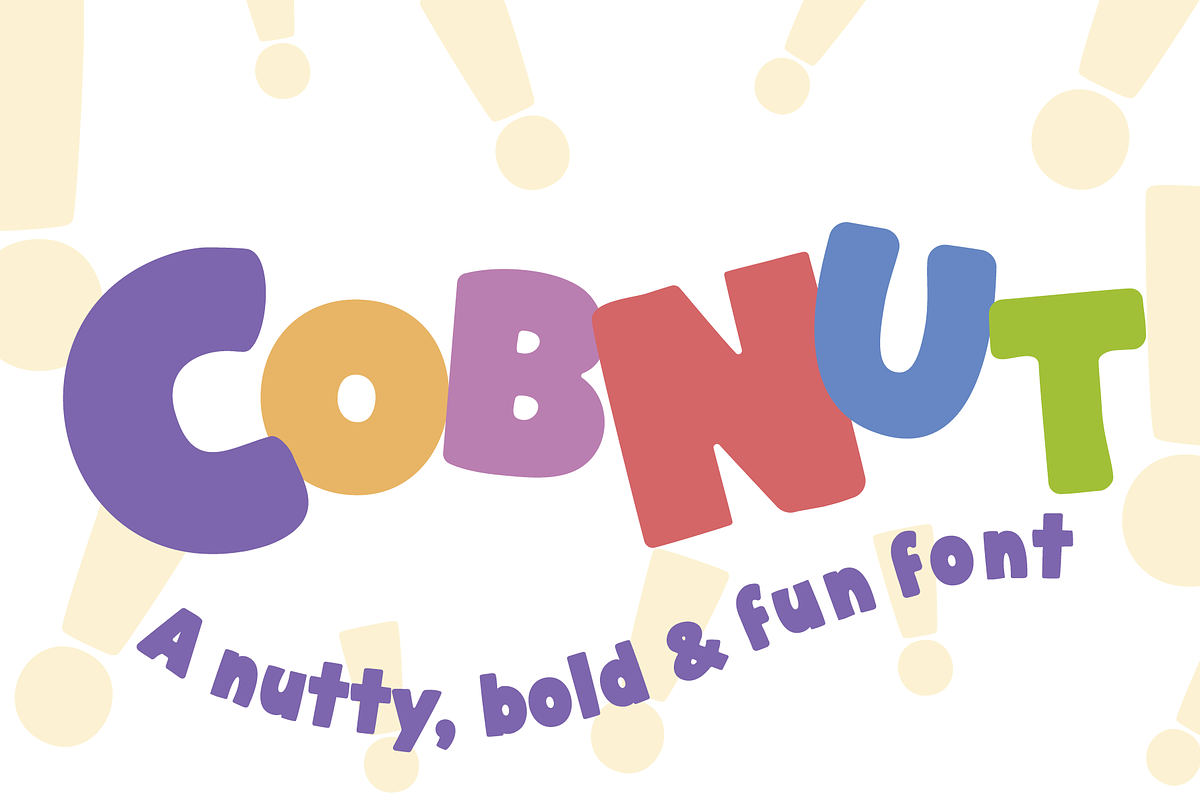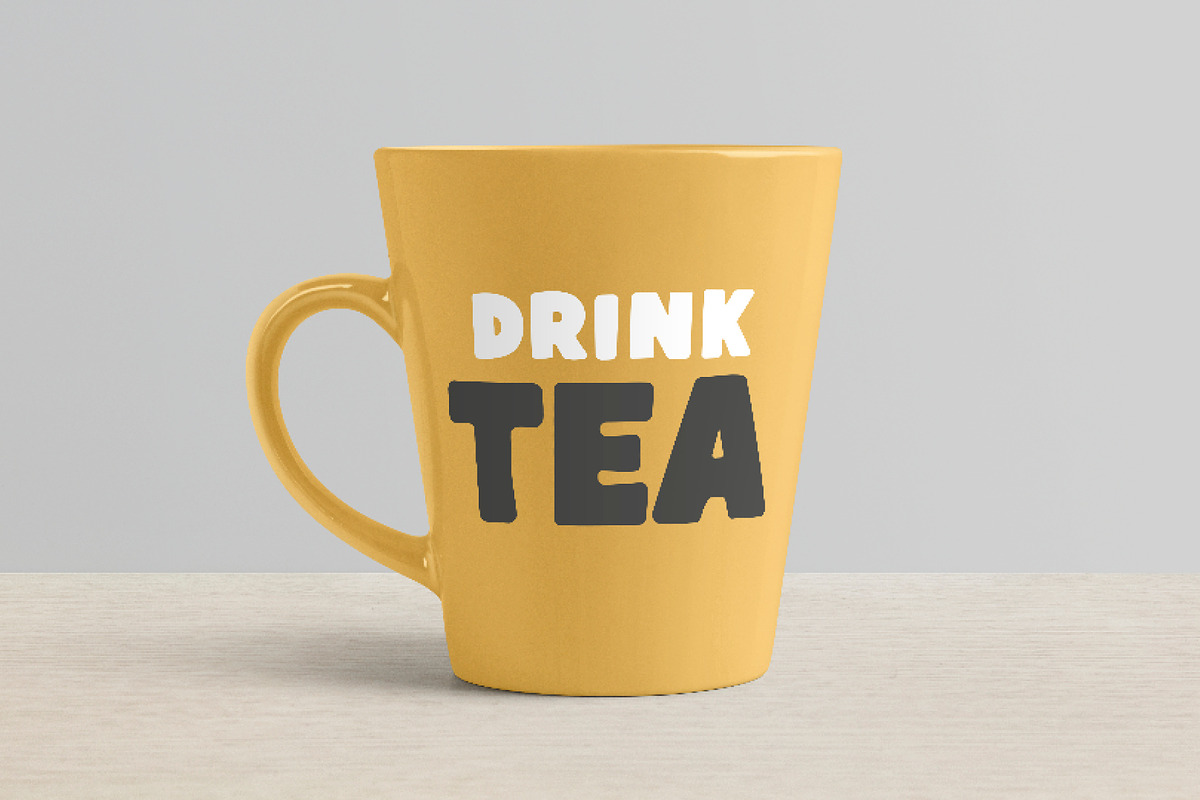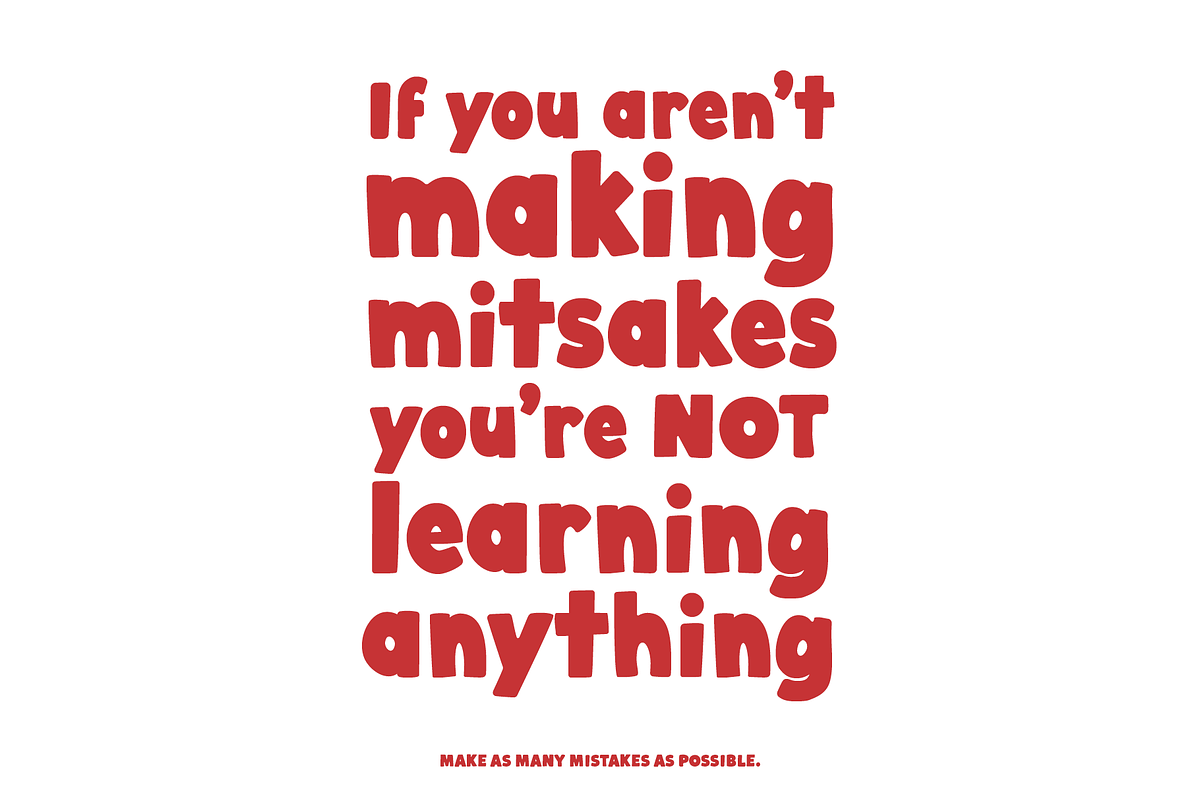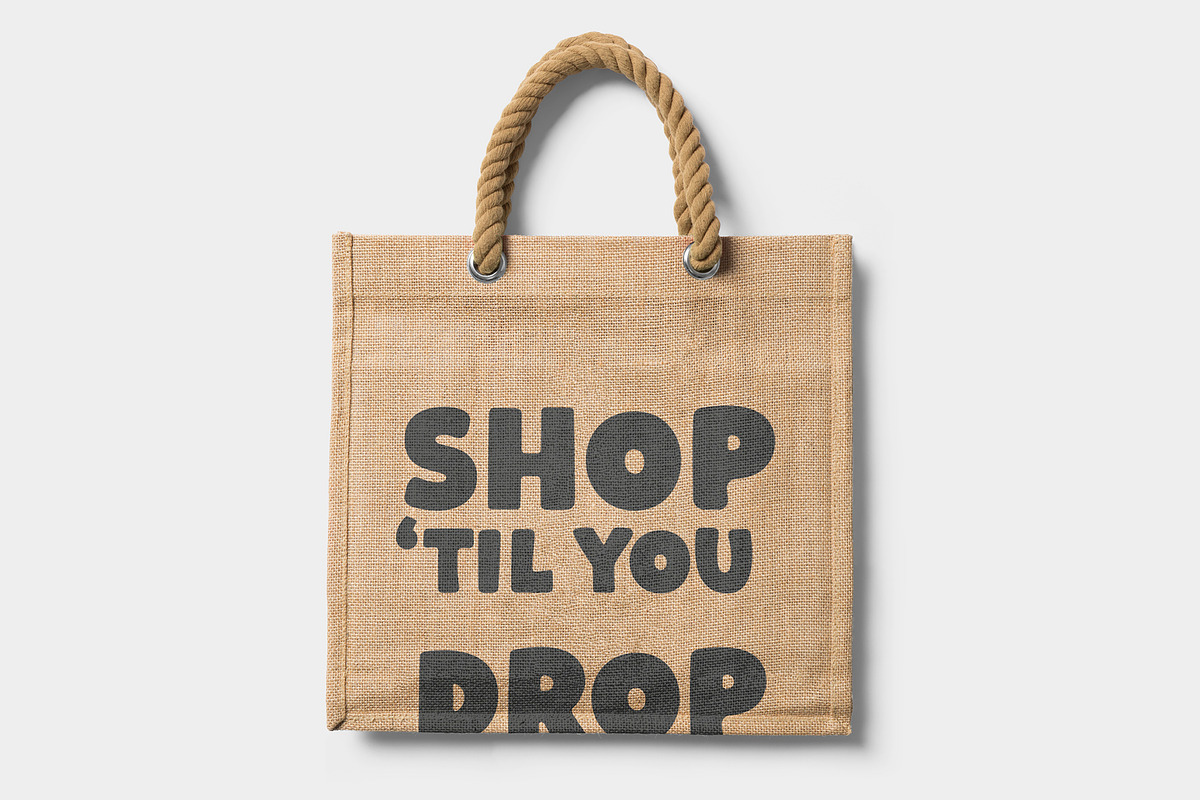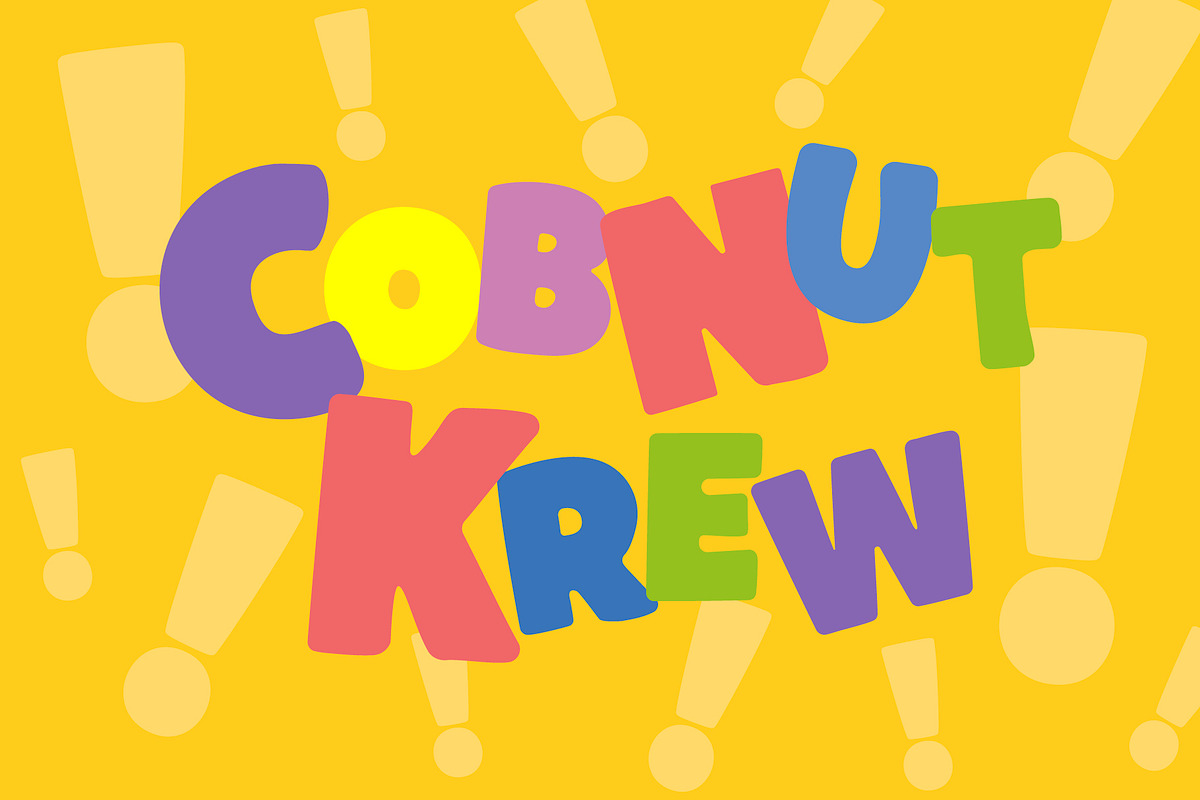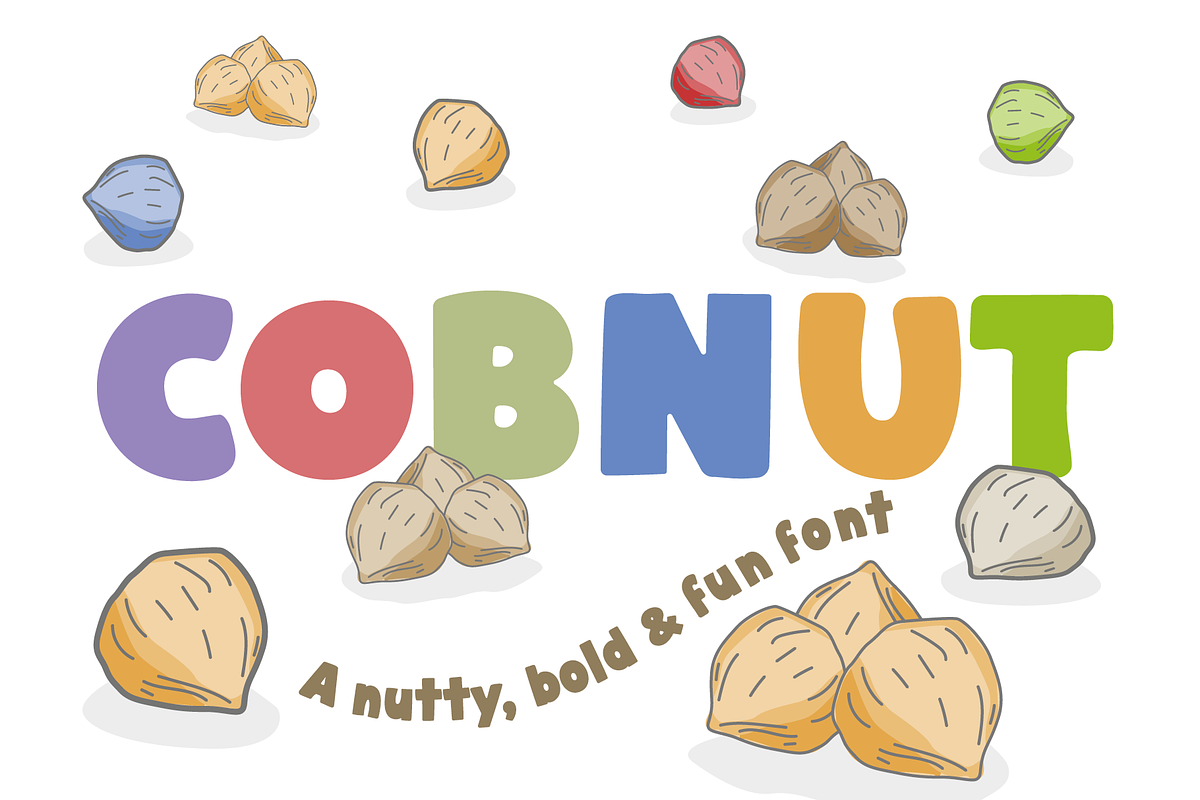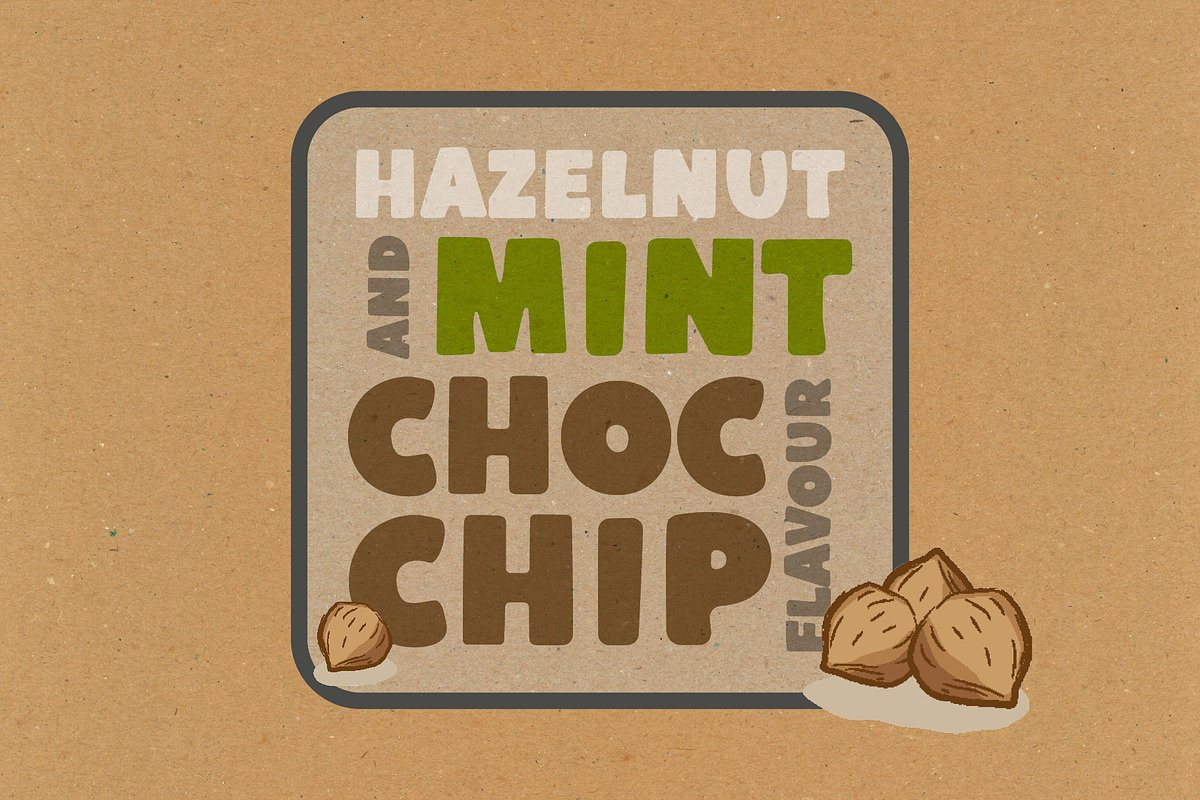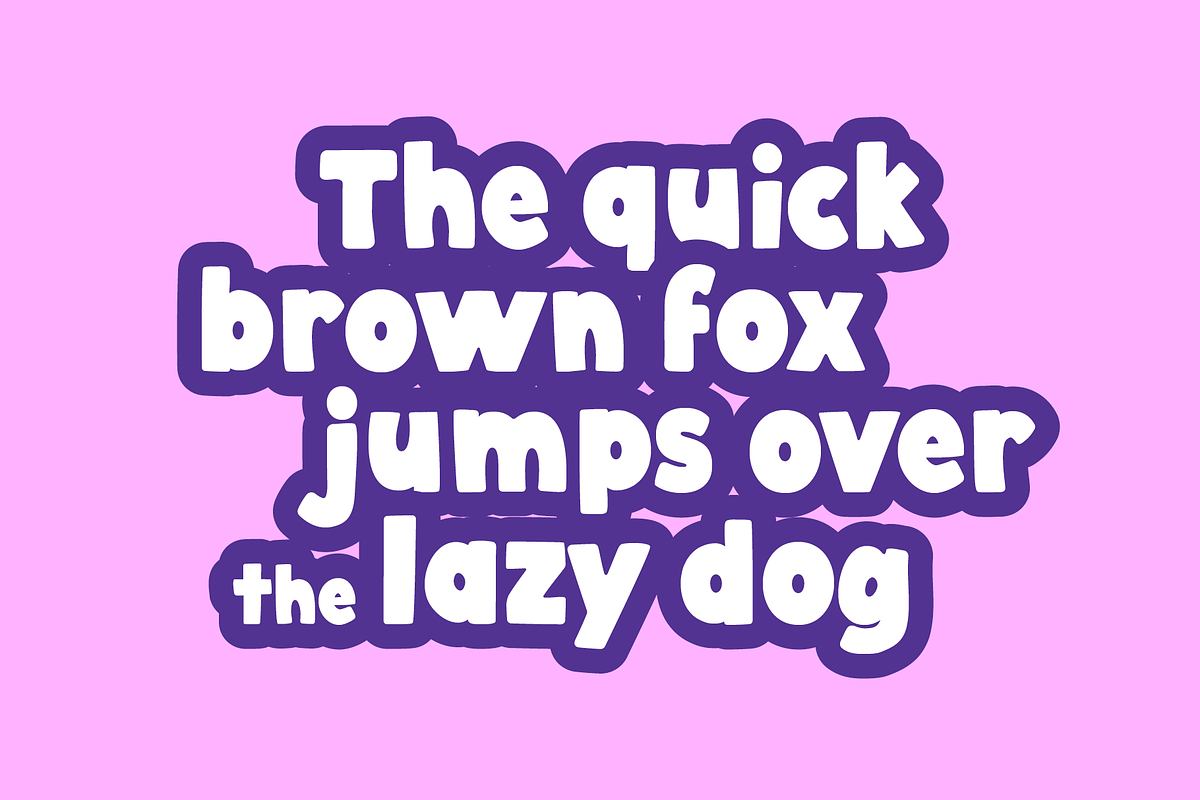
Cobnut - a nutty, bold and fun font
Cobnut is a nutty, bold and fun font. A distinctive display typeface. Strong and dynamic with soft, rounded corners. It is playful and sweet. Perfect for kids and children's items yet cool and unique for products with bags of character and full of impact!
Complete with uppercase, lowercase and special characters. Includes the full European character set including western, central and south eastern glyphs.